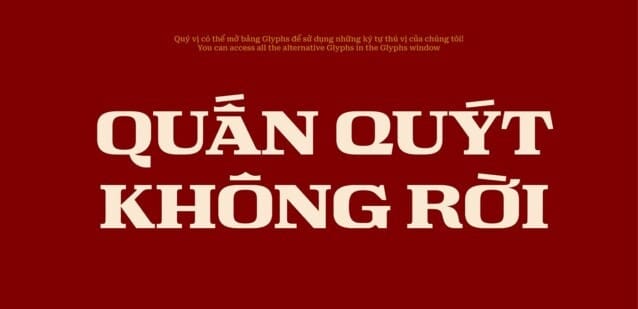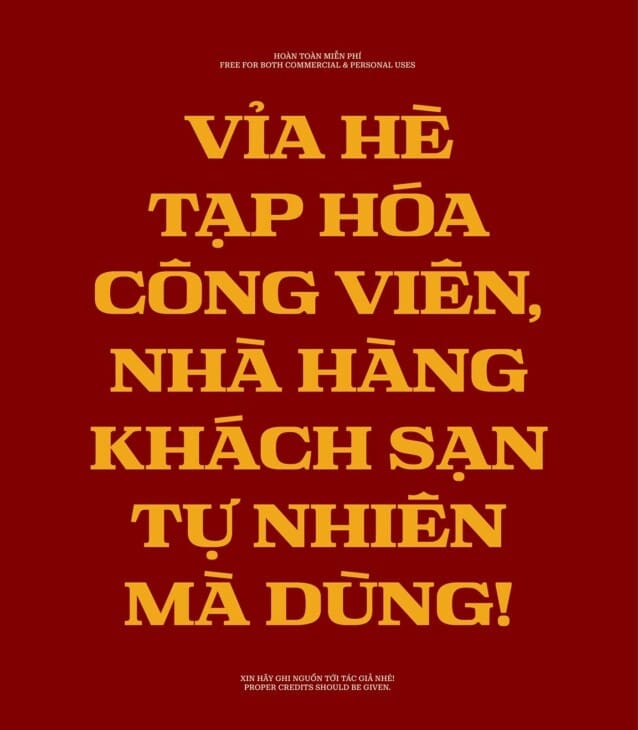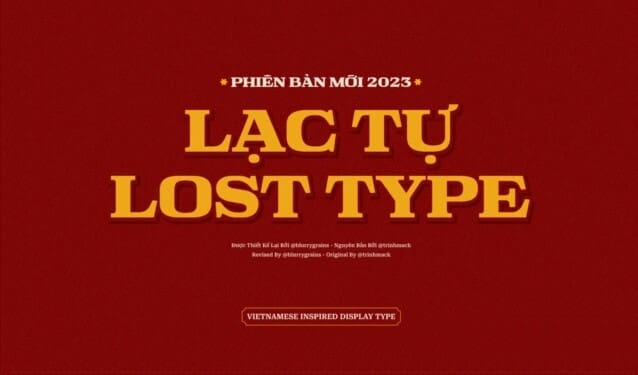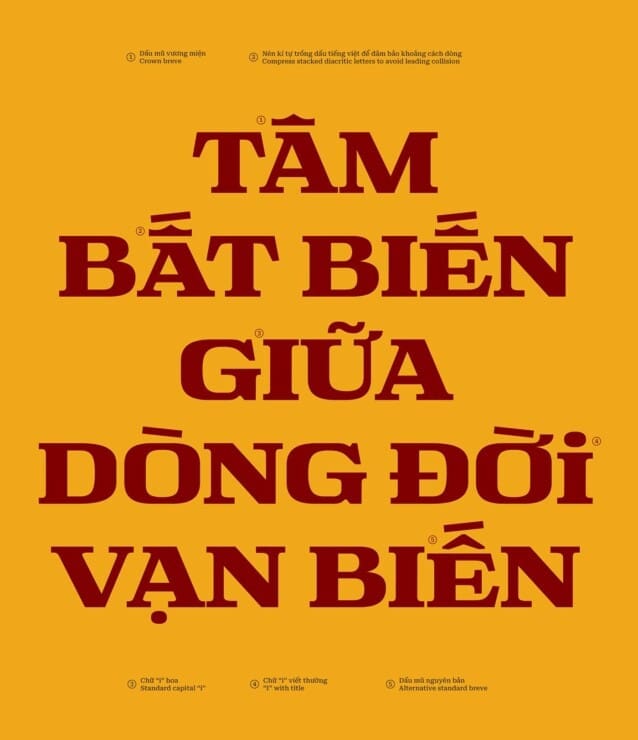
Lost Type Font
Lost Type Font is a classic serif font with a unique style, a light and high contrast font perfect for feminine logo signs, fashion heads & editorial designs.
Lost Type is perfect for branding projects, logo design, clothing branding, packaging, magazine headings, advertising, t-shirts, postcards and much more.